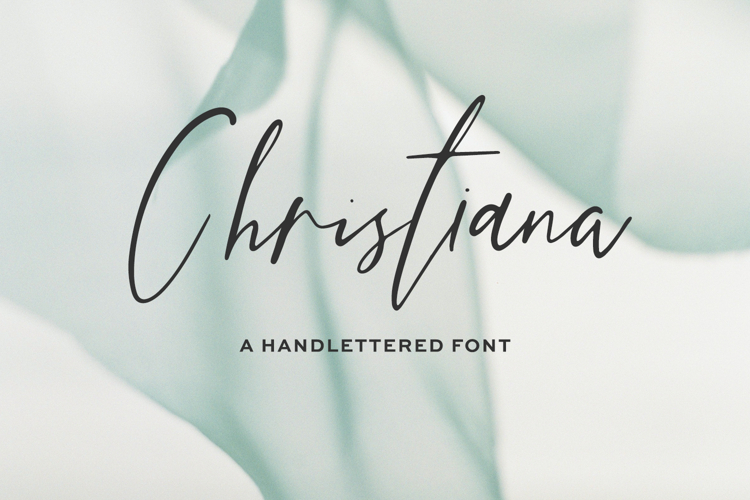
Christiana Script
Introducing Christiana Script, a thin, leaning script. Christiana Script is handlettered in the signature style, making it a fantastic addition to a bespoke, handmade brand. Christiana’s alternates and ligature features mean that the script is customizable to change the look & feel of whatever you’re working on, for a truly handwritten feel!
Christiana Script is best for:
- website design + website accents - think travel blogs, fashion blogs, & more
Christiana Script includes:
- 26 lowercase alternates
- 38 ligatures - al, ar, as, bb, cc, ck, cl, dd, ee, el, er, es, ff, gg, il, ir, is, ll, mm, nn, ol, om, on, oo, or, os, pp, rr, sh, sl, ss, st, th, the, tt, ul, ur, us